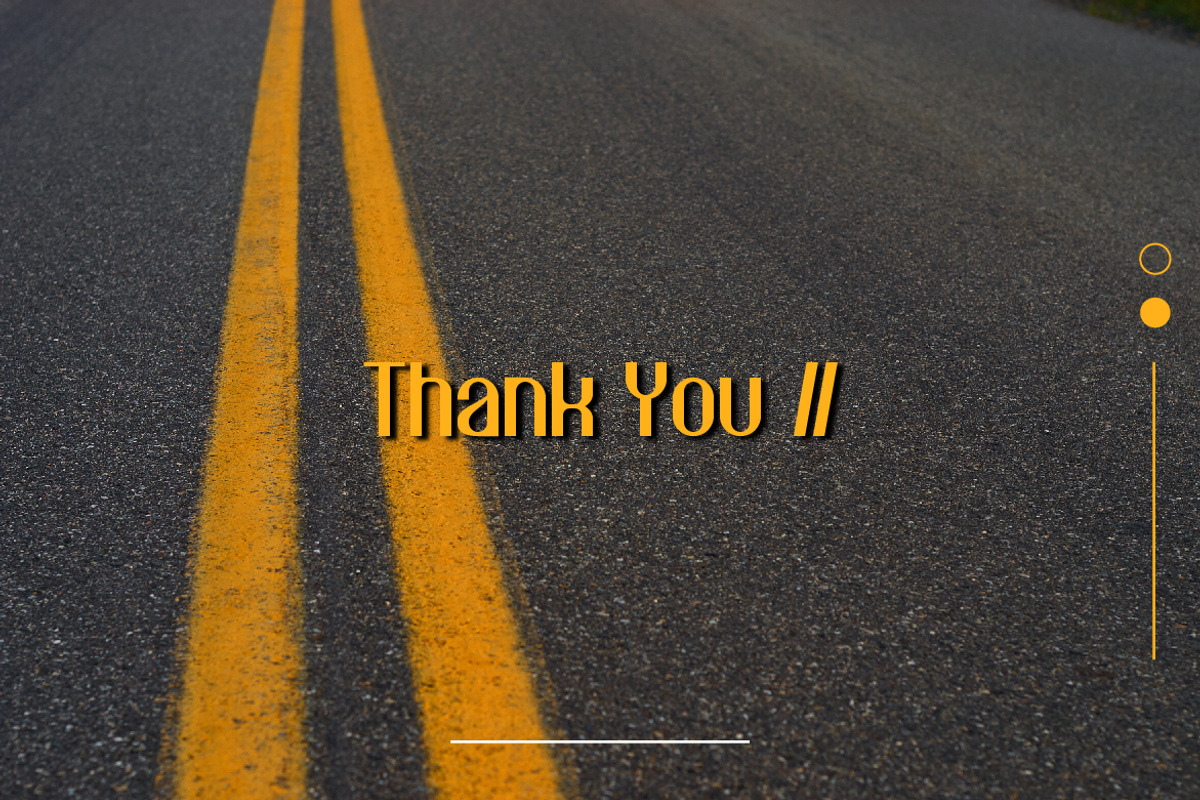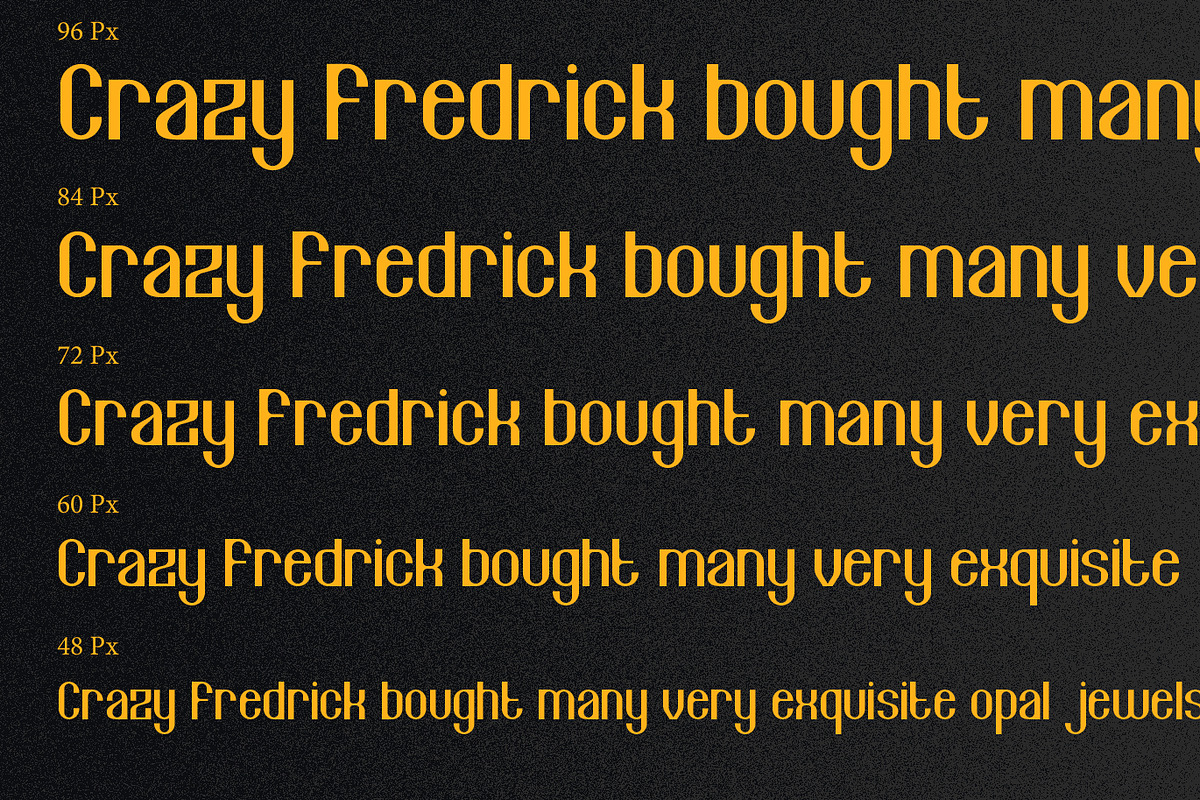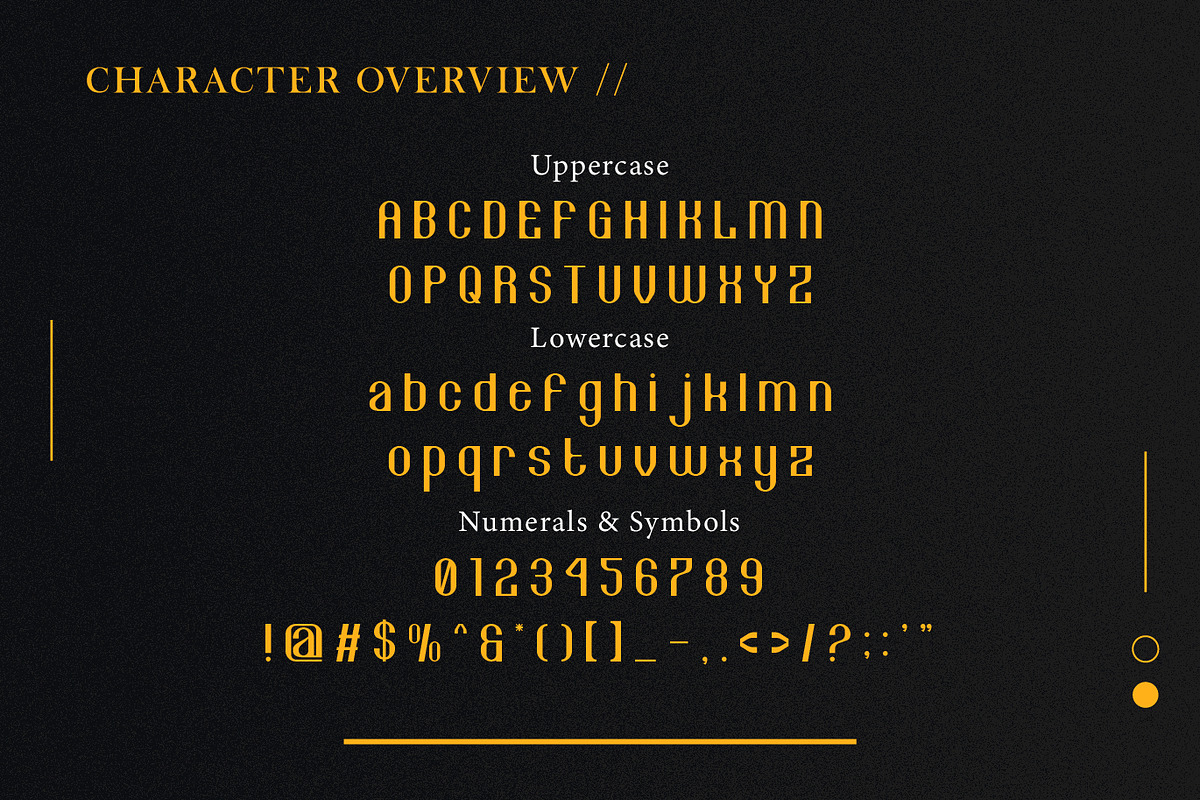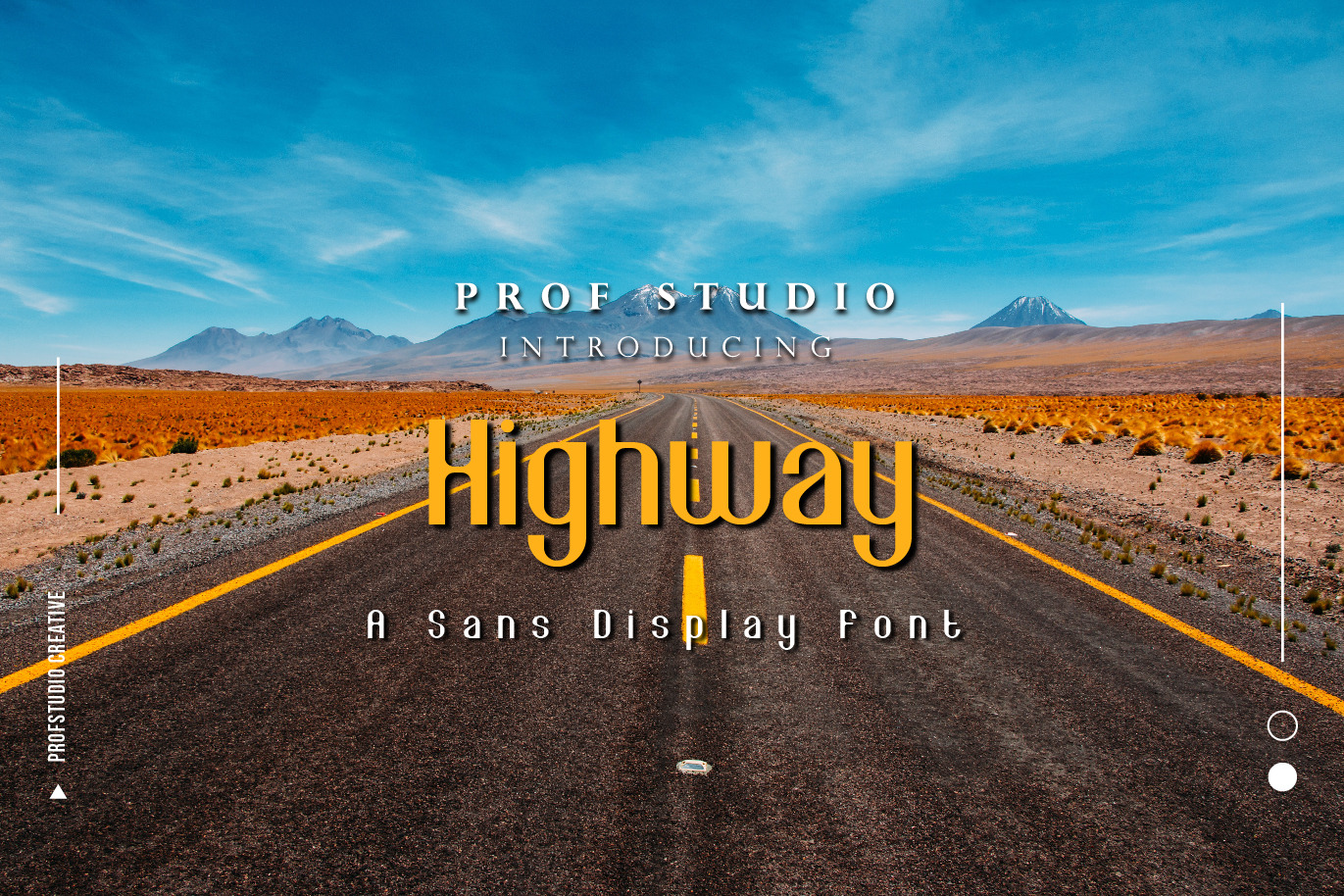
Highway - Sans Display Font
Hi Ladies and Gentleman ! Proudly present Sans Display Font “Highway” for your business.
Highway - Sans Display Font which can be interpreted professional. we keep this font looks Modern, readable, stylish, catchy and easy to use.
Highway - is the great choice for event design ,logo and many other design project. Highway here to make your work to high level!!!